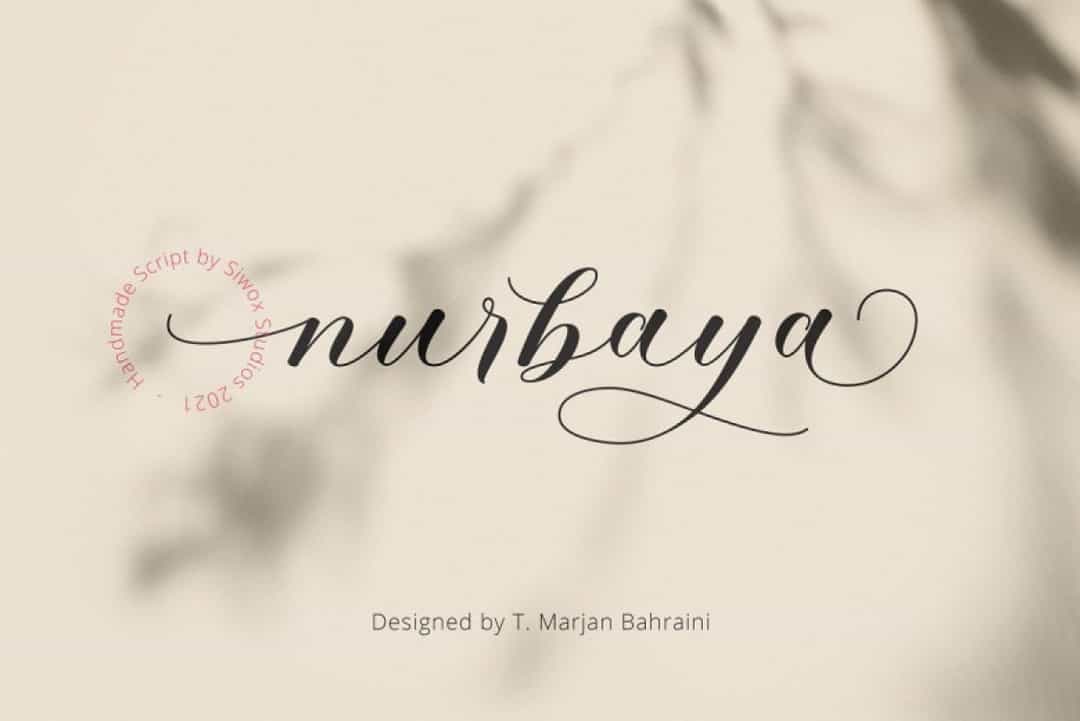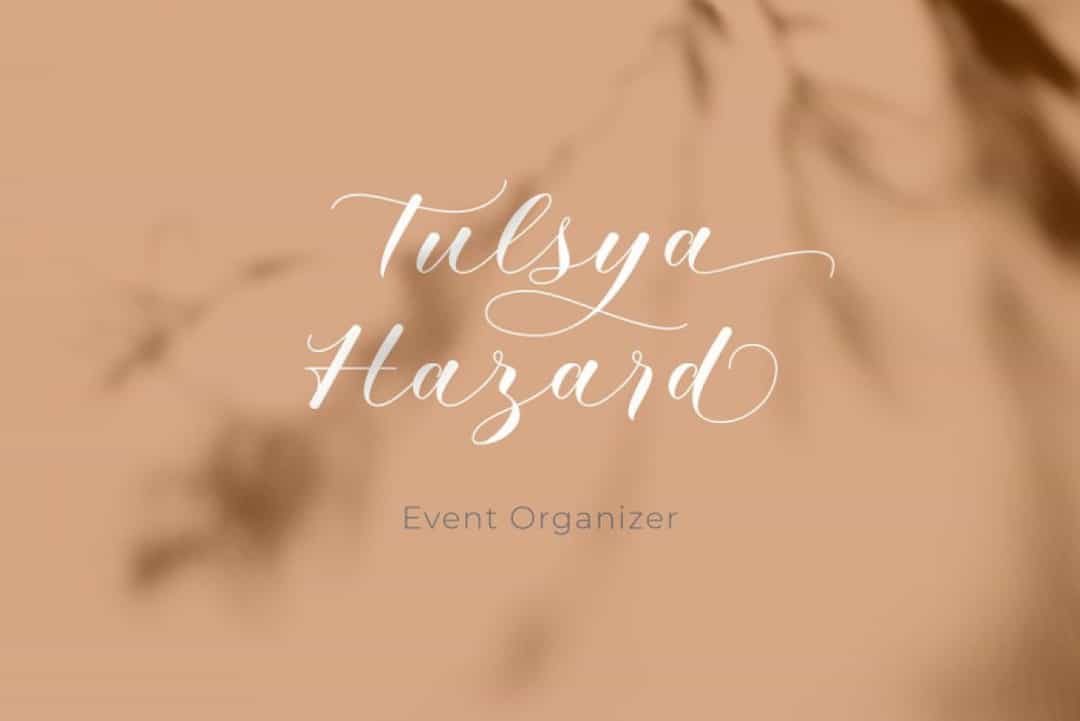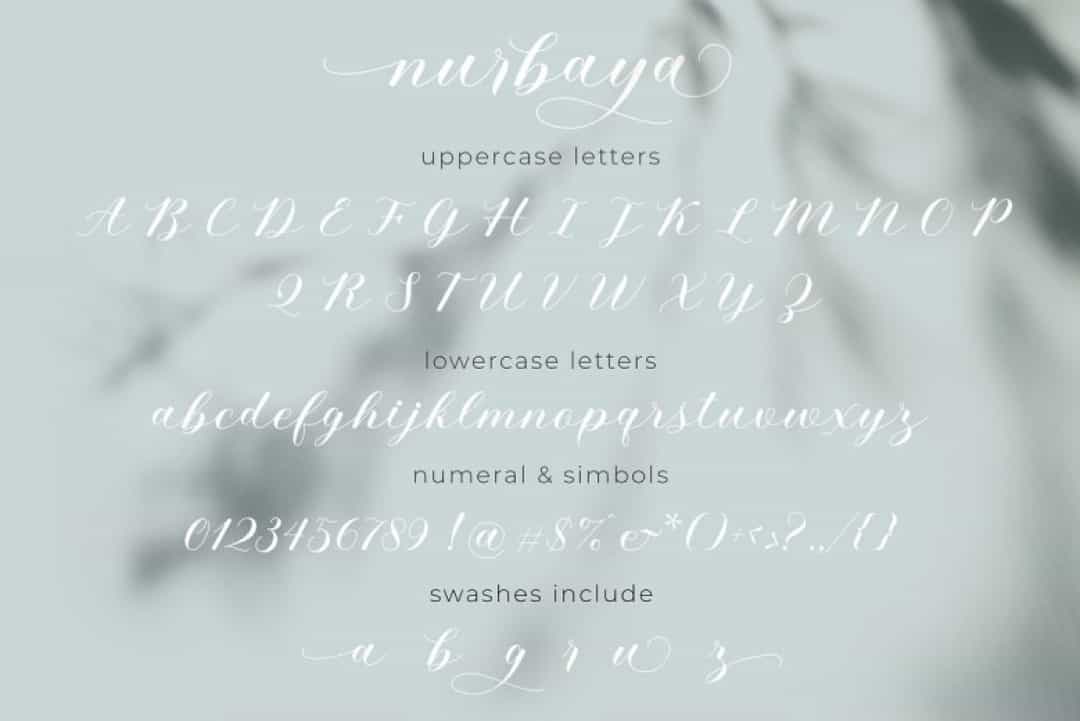
Nurbaya Calligraphy Font is both user-friendly and enjoyable, enabling anyone to explore a pleasing arrangement easily. Crafted by hand and featuring modern features that include swashes, alternate characters and support for most Western languages – Nurbaya makes use easy!